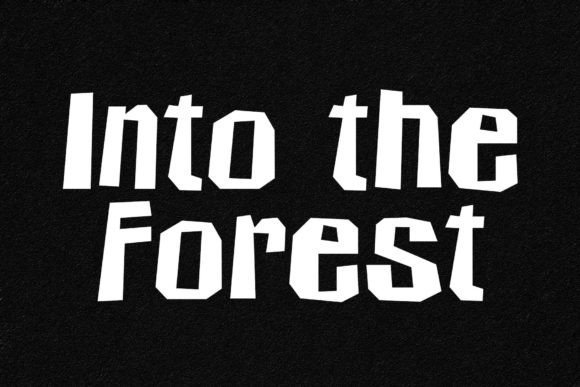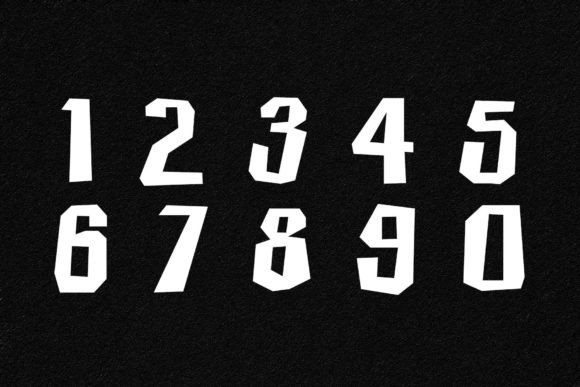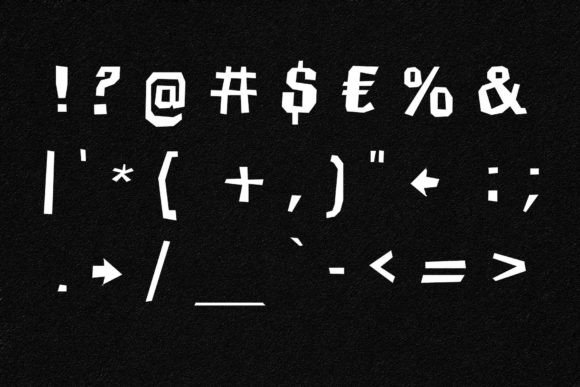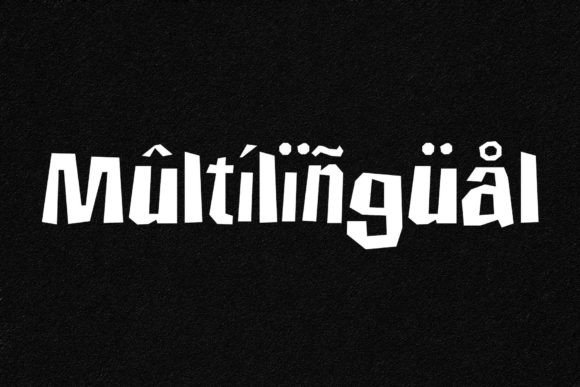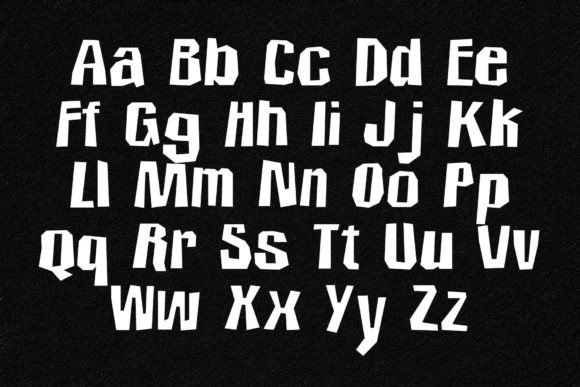
Discover the Magic of Into the Forest Font
Have you ever sat down at your desk, staring at a blank page or screen, trying to conjure up the perfect idea? The blank slate can be daunting, but what if I told you that the right font could be the spark that sets your creativity ablaze? For designers, the perfect font can make all the difference between a good design and a great one.
That’s where Into the Forest Font comes in – a whimsical and fun display font that brings a playful touch to any design. With its friendly characters, Into the Forest Font is the perfect addition to a wide range of creative projects, from children’s book illustrations to event branding. Its versatility makes it a valuable asset for designers looking to add a touch of magic to their work.
Key Features of “Into the Forest Font”
- Unique Characteristics: The font features a natural, hand-drawn look with subtle irregularities, giving it a unique and organic feel.
- Kerning and Ligatures: The font includes advanced kerning and ligature tables, ensuring proper spacing and connection between characters.
Designer Review: Into the Forest Font
Overall, I think Into the Forest Font has some great qualities that make it a compelling choice for certain design projects. ✨ The font’s whimsical and nature-inspired feel is immediately engaging, and the unique character set adds a touch of personality to any text. ✨ The font’s versatility is also noteworthy, working well in both digital and print applications.
However, there are some limitations that should be considered. ⚠️ The font’s character set is not as comprehensive as some other fonts, which may limit its use in certain situations. ⚠️ Additionally, the font’s readability can be affected by the size and resolution of the text, which may make it less suitable for small text sizes or low-resolution displays.
Here are some specific pros and cons to consider:
- ✨ Unique character set and personality
- ✨ Versatile and works well in digital and print applications
- ⚠️ Limited character set may restrict use in certain situations
- ⚠️ Readability can be affected by text size and resolution
In conclusion, Into the Forest Font is a solid choice for designers looking for a unique and nature-inspired font. While it has some limitations, its strengths make it a great option for certain projects.
Use Into the Forest Font for:
- Outdoor and nature-themed projects.
- Designing book covers and magazine layouts.
- Creating posters and flyers for events and campaigns.
For the best results, use Into the Forest Font in combination with earthy color schemes and natural textures.